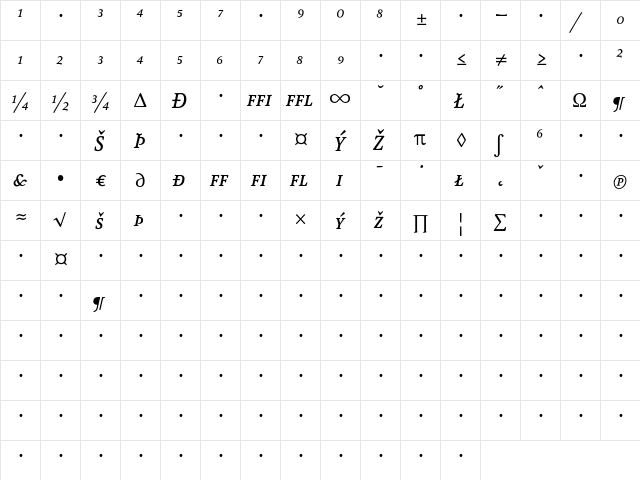
AtmaSerifExp-MediumItalicMC Regular Font Preview
AtmaSerifExp-MediumItalicMC Regular
Design Context for AtmaSerifExp-MediumItalicMC Typeface
AtmaSerifExp-MediumItalicMC carries the refined structure of traditional serif typography, with bracketed terminals and considered proportions that communicate credibility and craft. Its italic angle brings a sense of urgency and motion to the letterforms.
Pro Tip: Use AtmaSerifExp-MediumItalicMC for editorial body copy and considered headline work. Pair with a neutral sans for UI elements or captions to create a classic hierarchy.